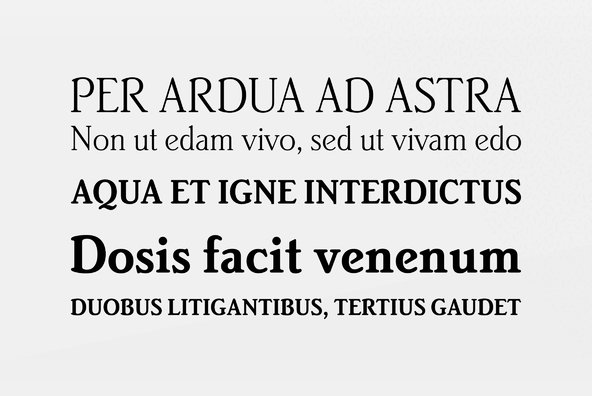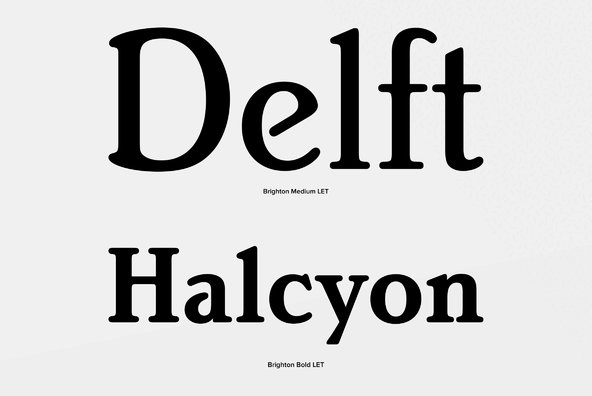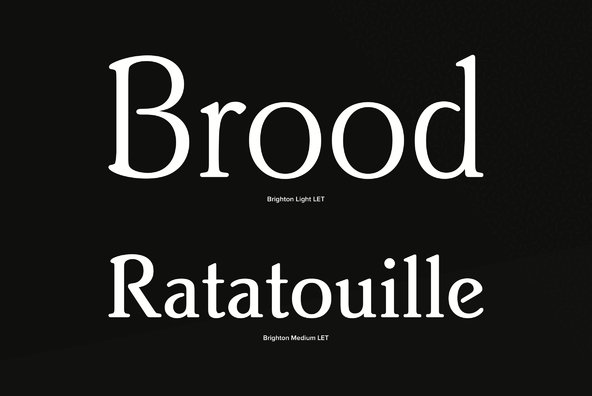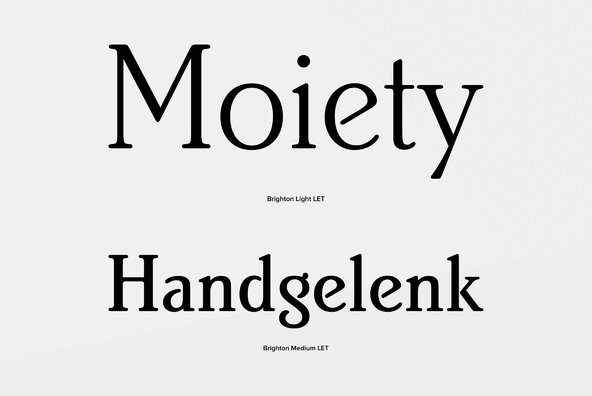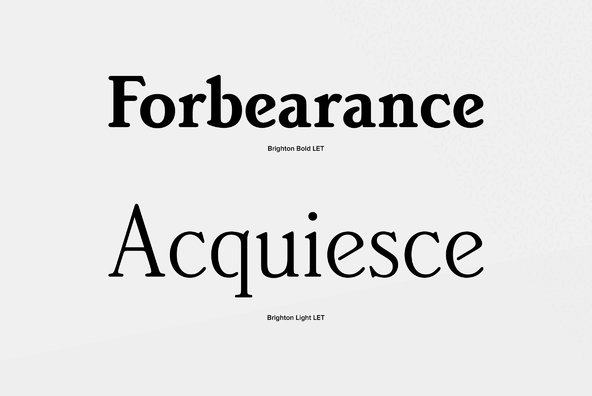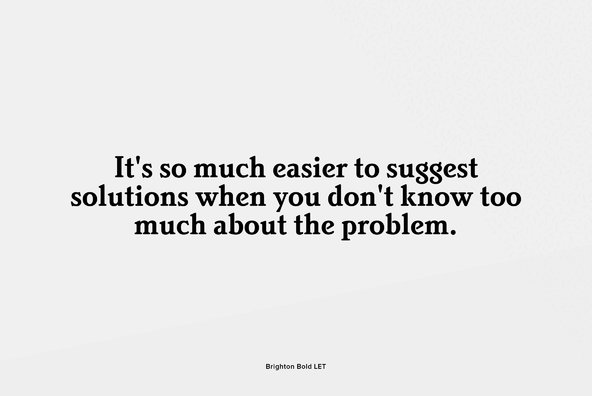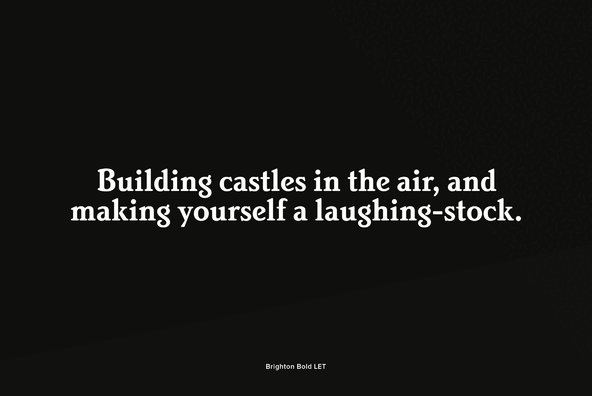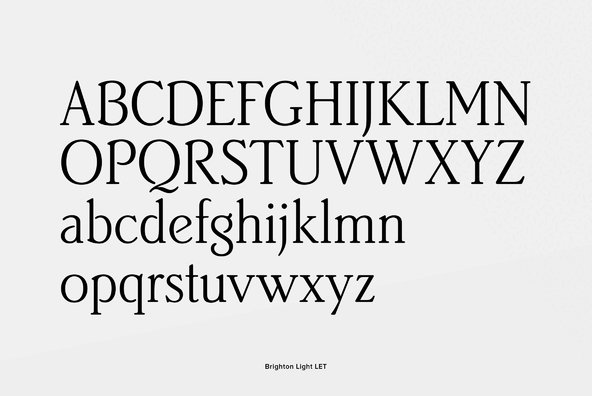
Brighton
Foundry: Letraset
The charm of the Brighton series lies in the simple letterform construction that makes it suitable for virtually any typographic requirement. A feeling of warmth within the design has been achieved through the use of soft terminals. Designed by English typographer Alan Bright.